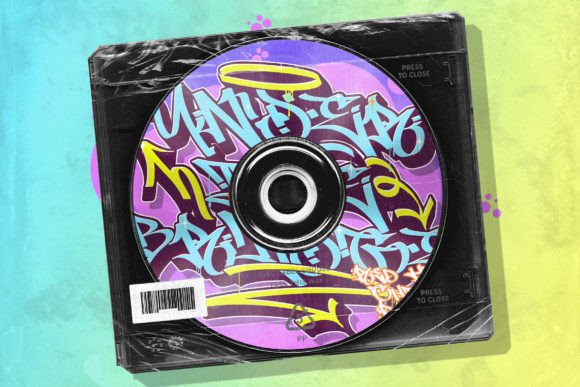
Stone Cold Crazy Font
Stone Cold Crazy is an electrifying street graffiti font that brings the raw energy and creativity of urban tagging to your designs. This dynamic font supports multiple foreign languages, making it perfect for a global audience. Featuring both uppercase and lowercase letters, Stone Cold Crazy provides versatility and impact for any project.
Inspired by real experiences in the graffiti scene and the artistry of tagging with graffiti markers, Stone Cold Crazy captures the essence of street art. The font comes with iconic rounded tip marker strokes, a style favored by graffiti artists worldwide for its unique and entertaining look. To elevate your designs further, Stone Cold Crazy includes an array of street graffiti ornaments, adding authenticity and flair.